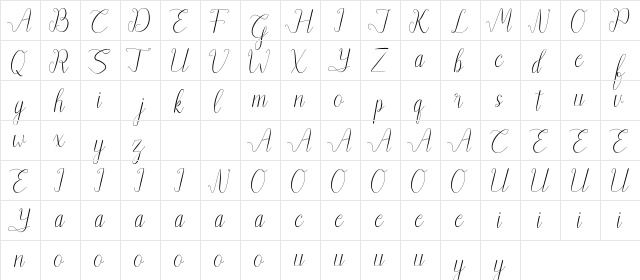
Belynti Demo Script
| Style | Script |
| Designer | AmruID |
Design Context for Belynti Demo Typeface
Belynti Demo brings a calligraphic fluidity to the page — its connecting strokes and expressive curves give it an unmistakably human quality.